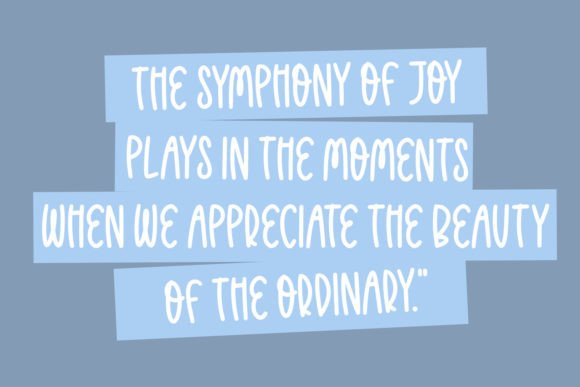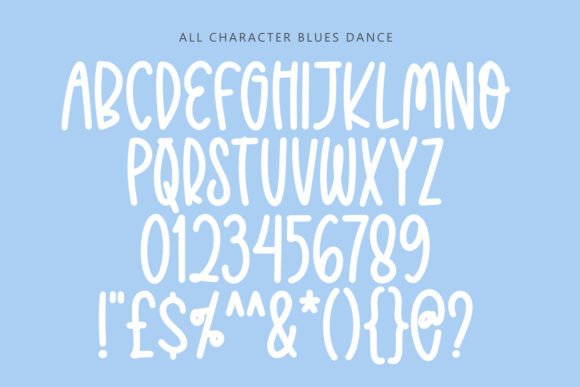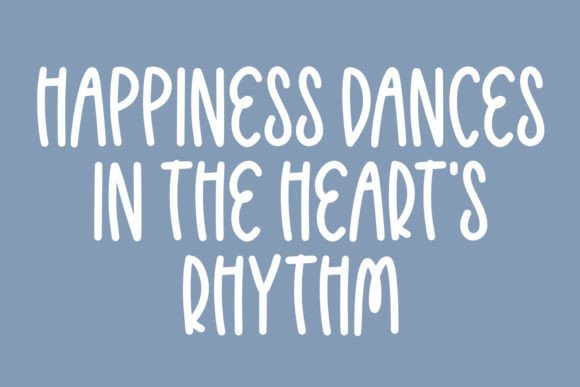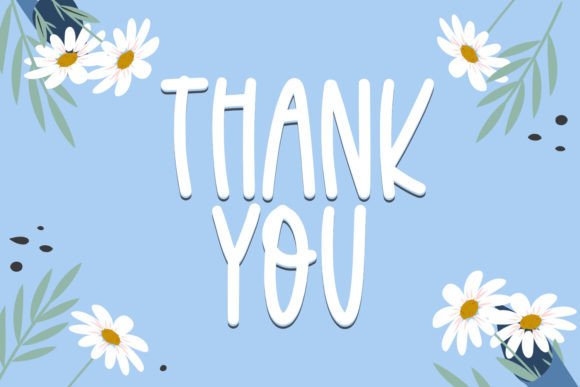
Introduction to Blues Dance Font
As you’re working on your latest creative project, have you ever found yourself searching for the perfect font to give it that extra oomph? Maybe you’re crafting a promotional flyer for a music festival, or perhaps you’re designing a set of social media graphics for a fun brand. Whatever your project, you know that the right font can make all the difference in capturing the right mood and vibe.
That’s where the Blues Dance Font comes in – a delightful handwritten-style font that’s guaranteed to add a playful and casual touch to your designs. With its whimsical strokes and informal feel, this font is the perfect way to inject some personality and joy into your work. And the best part? It’s available for free download, making it an invaluable design resource for creatives on a budget.
- High-quality, unique font design perfect for creative projects, including music and dance-related themes.
- Designed in a bold, expressive style, making it suitable for headings, titles, and other prominent text elements.
Honest Review: Blues Dance Font
I recently stumbled upon the Blues Dance Font, and I’m excited to share my thoughts on this design resource. Overall, I found it to be a great addition to my collection.
What works well: ✨ The font has a unique, energetic feel that’s perfect for creative projects like music event posters or promotional materials. The high quality of the font is also impressive, making it suitable for various design applications.
- Unique, energetic feel perfect for creative projects
Limitations: ⚠️ While the font is generally well-designed, it may not be suitable for all design projects, particularly those requiring a more formal or traditional aesthetic.
Overall impression: I’m quite impressed with the Blues Dance Font. Its unique style and high quality make it a great addition to any designer’s toolkit. If you’re looking for a fun, energetic font for your next creative project, I’d definitely recommend giving it a try.
The Blues Dance Font is commonly used in creative projects such as posters, flyers, and social media graphics. It’s also used in wedding invitations and other event materials due to its elegant and sophisticated design.
Compared to Blues Dance Font, Pacifico has a more refined and polished look, making it suitable for more formal occasions. While Blues Dance Font has a vintage feel, Pacifico exudes a sense of modernity and sophistication.